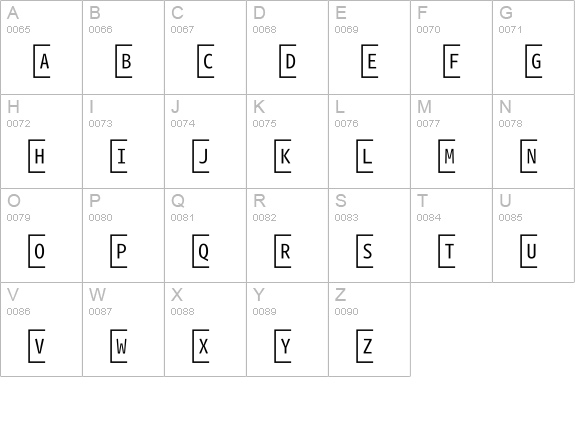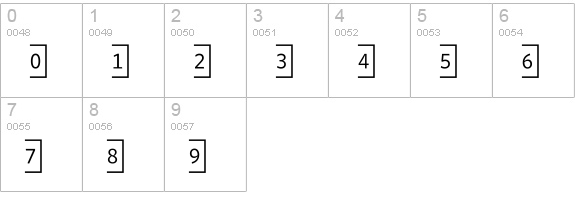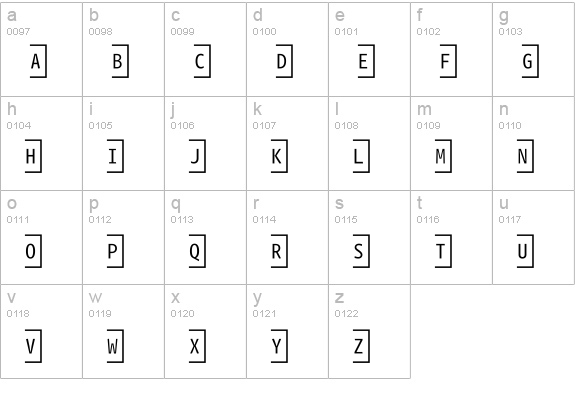
WhitneyIndexWhite-SquareLt2 is a modern and stylish font that will add a touch of sophistication to any design project. With its clean lines and minimalist aesthetic, this font is perfect for branding, logos, headlines, and more. Designed with versatility in mind, WhitneyIndexWhite-SquareLt2 can be used in both print and digital mediums, ensuring that your message will be delivered flawlessly across all platforms. Its legibility and readability make it an excellent choice for body text as well. One of the best features of WhitneyIndexWhite-SquareLt2 is that it is freely available to download at FontsMarket.com. This means that you can easily access and use this font for all your personal and commercial projects without any cost. Whether you are a professional designer or a hobbyist, this font is a valuable addition to your font library. The clean and geometric shapes of WhitneyIndexWhite-SquareLt2 exude a sense of modernity and professionalism. Its balanced proportions and sleek appearance make it suitable for a wide range of design styles, from corporate and business-related projects to creative and artistic endeavors. Overall, WhitneyIndexWhite-SquareLt2 is a versatile and visually appealing font that will elevate your designs to a new level. Its free availability at FontsMarket.com makes it even more accessible, allowing you to create stunning and impactful designs without any financial constraints. So why wait? Download WhitneyIndexWhite-SquareLt2 today and unlock the endless possibilities it offers for your next project.